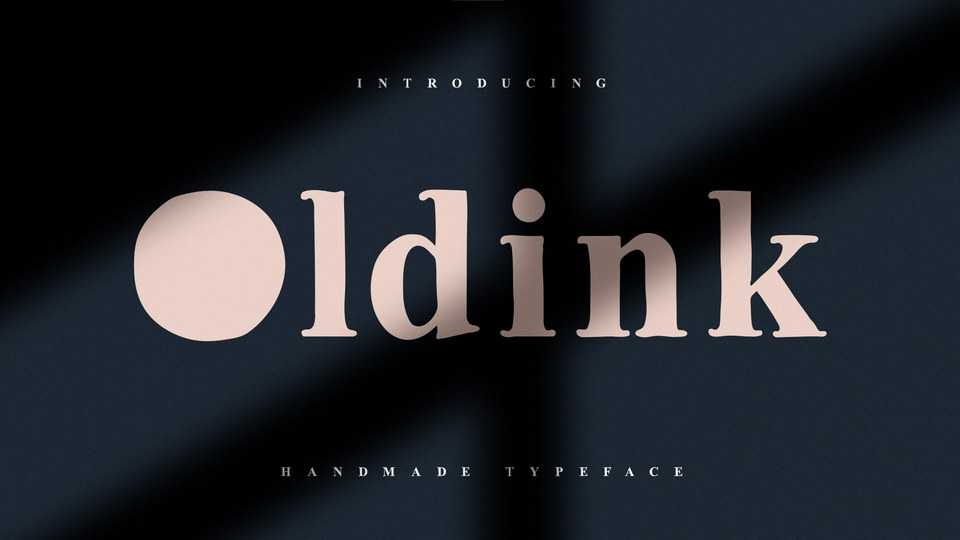
Download Oldink font, a handwritten and rough typeface to enchant your next project. Oldink is a very versatile fonts that works great in large and small sizes.
Designer: VP Creative Shop